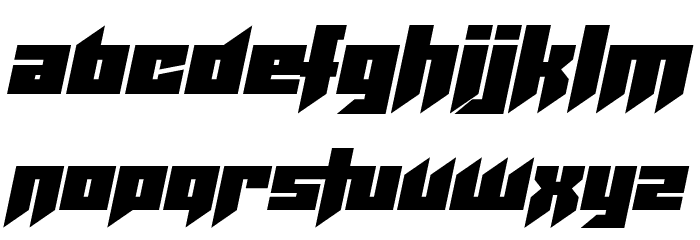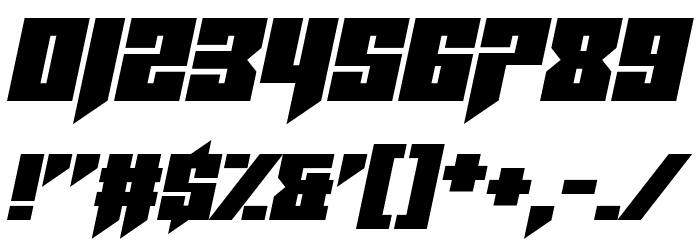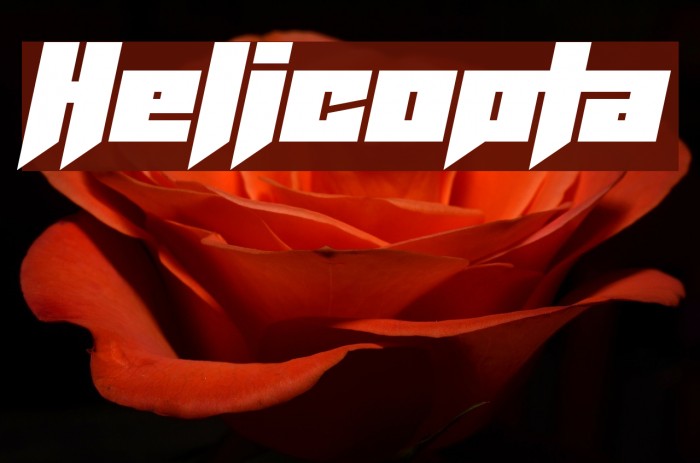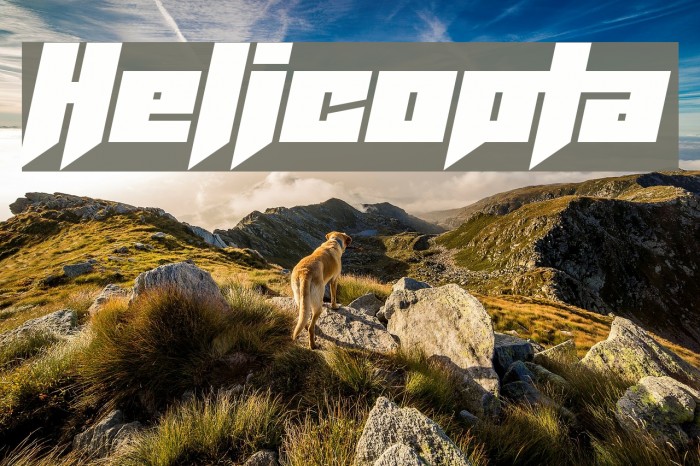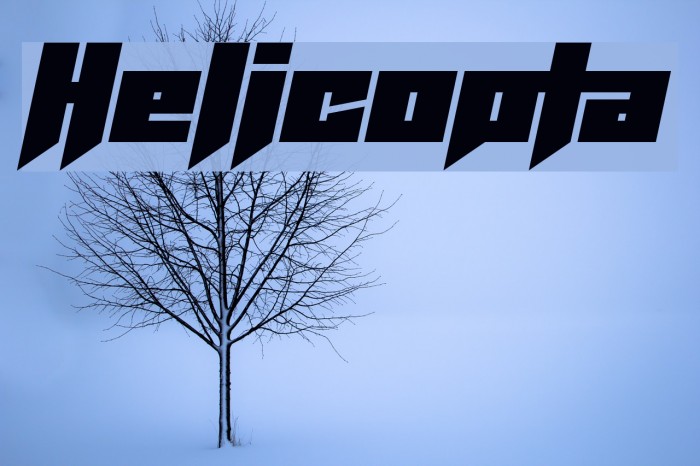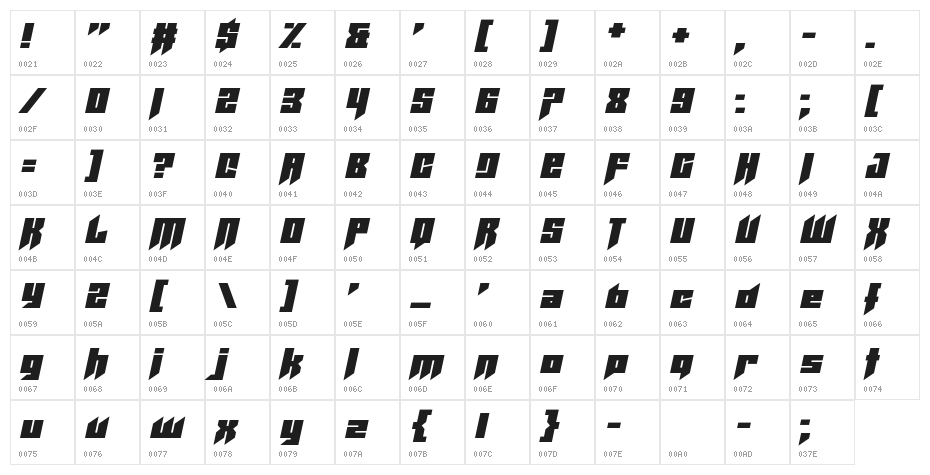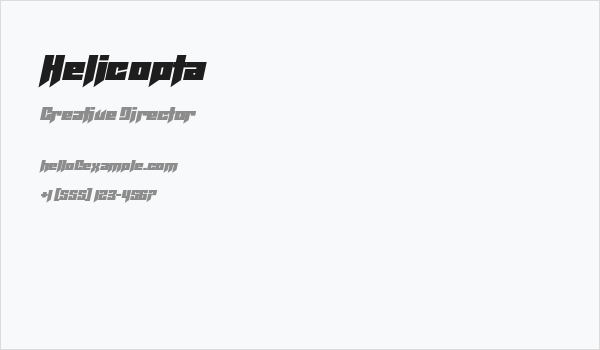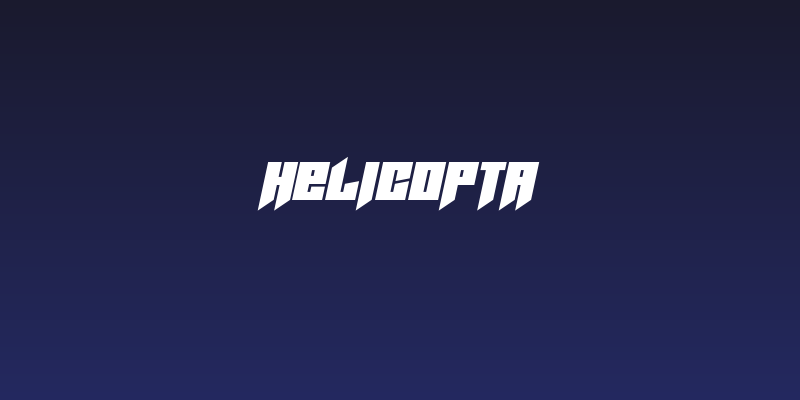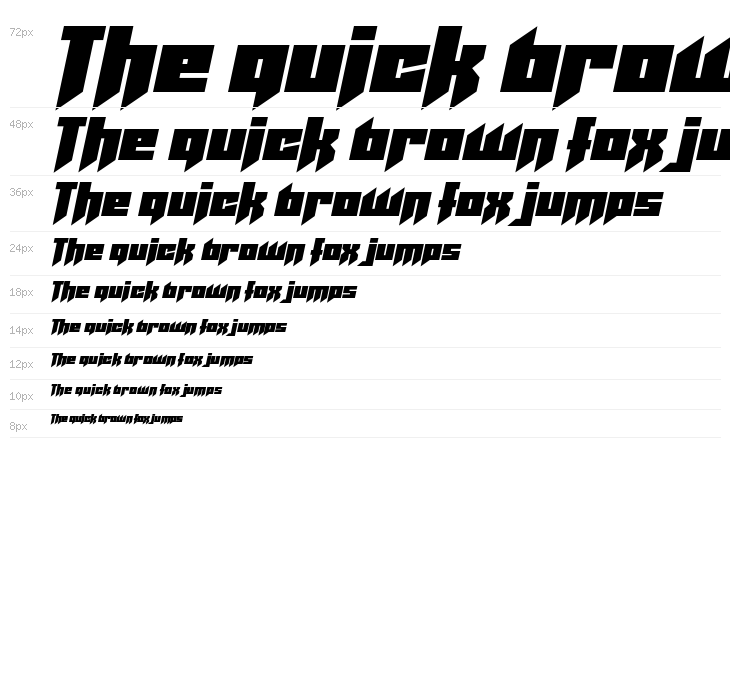
Helicopta Font
This font features a bold and dynamic design with sharp, angular edges that give it a futuristic and aggressive appearance. The characters are heavily stylized, with a consistent slant that adds a sense of motion and energy. The uppercase and lowercase letters maintain a uniform style, with exaggerated serifs and pointed terminals. Numbers and special characters follow the same design principles, ensuring a cohesive look across all glyphs. The overall aesthetic is striking and modern, making it ideal for projects that require a strong visual impact.
A bold, angular font with a futuristic and aggressive style.
- Proposed Projects: Ideal for video game titles, sports branding, posters, and any project needing a bold, dynamic look.